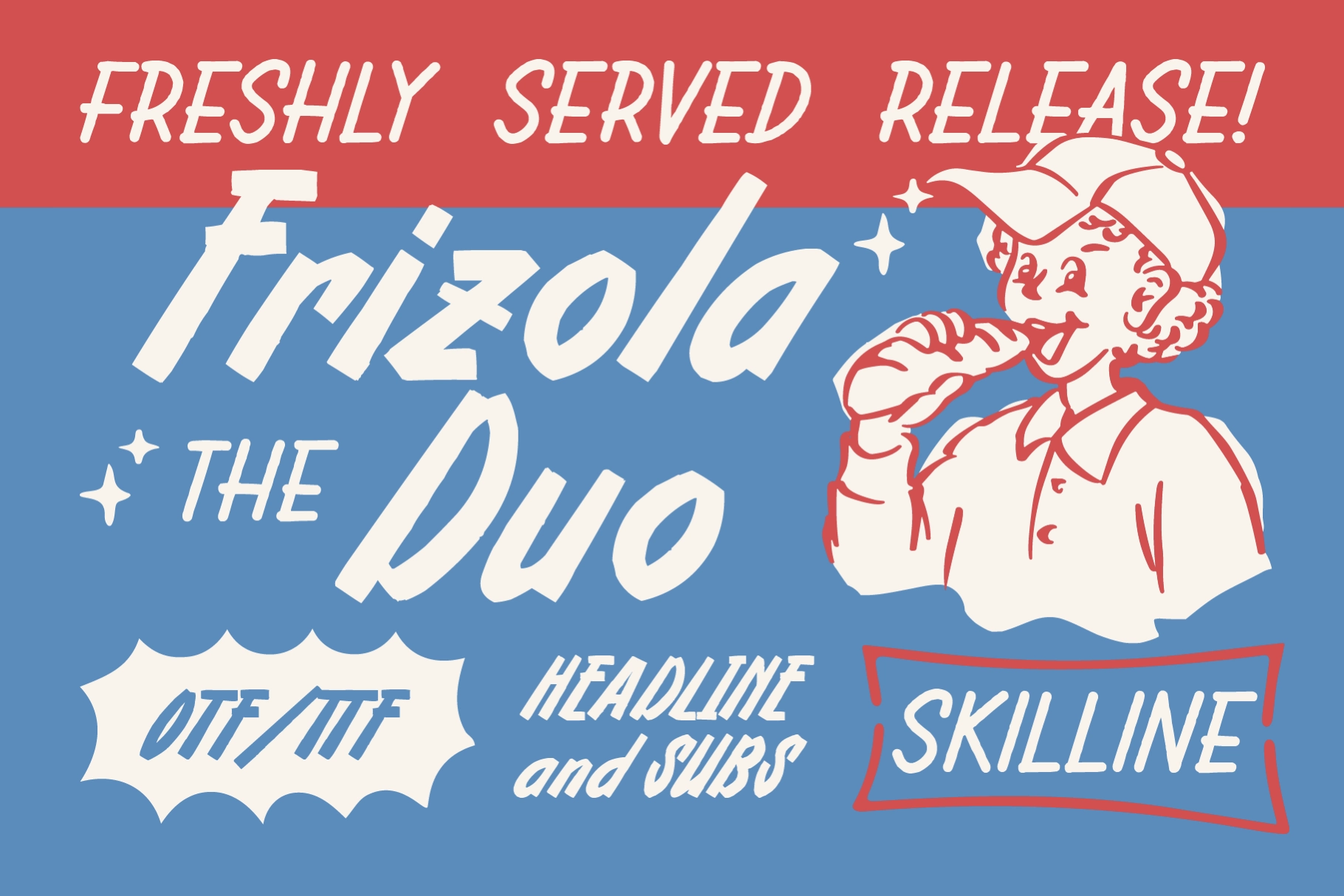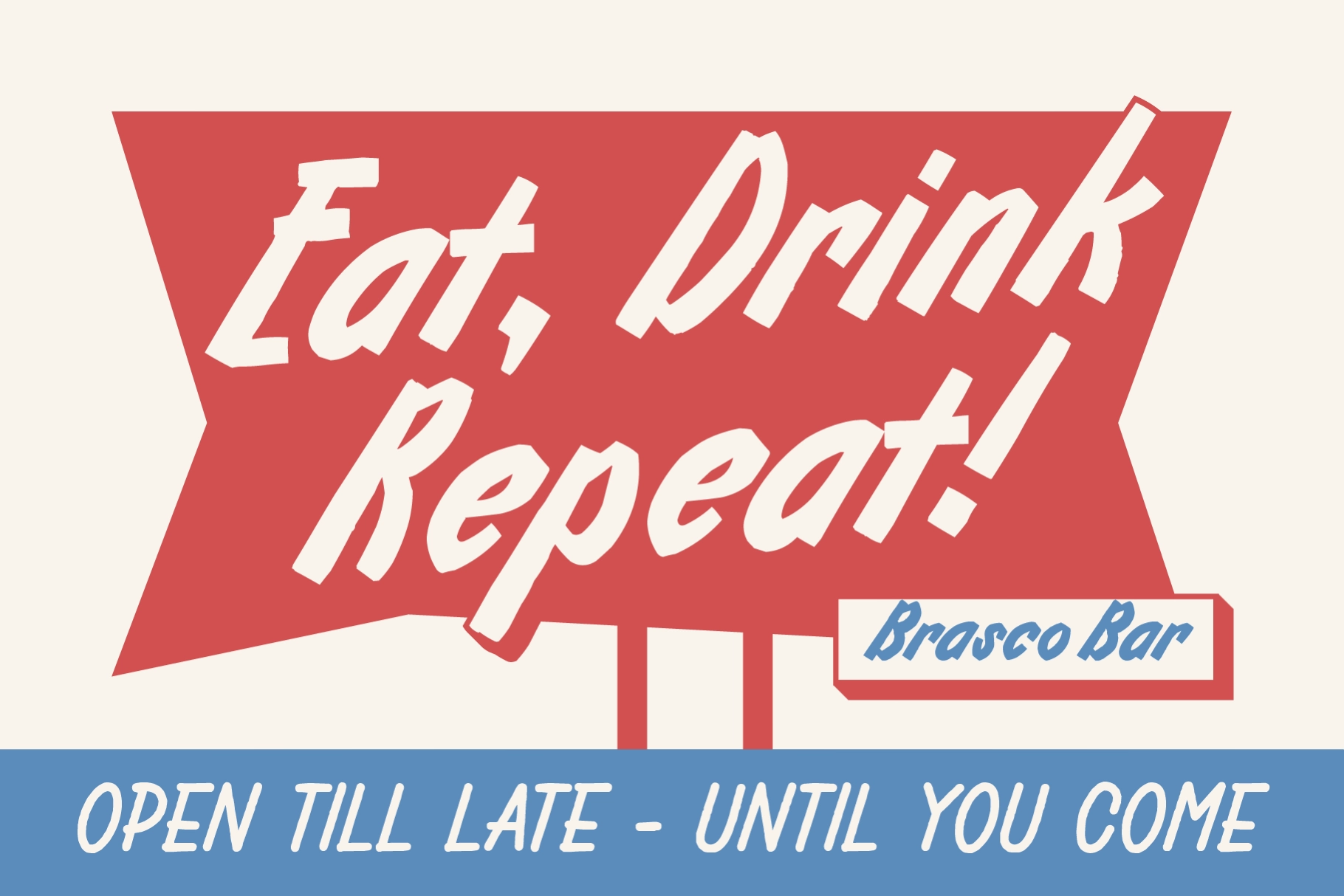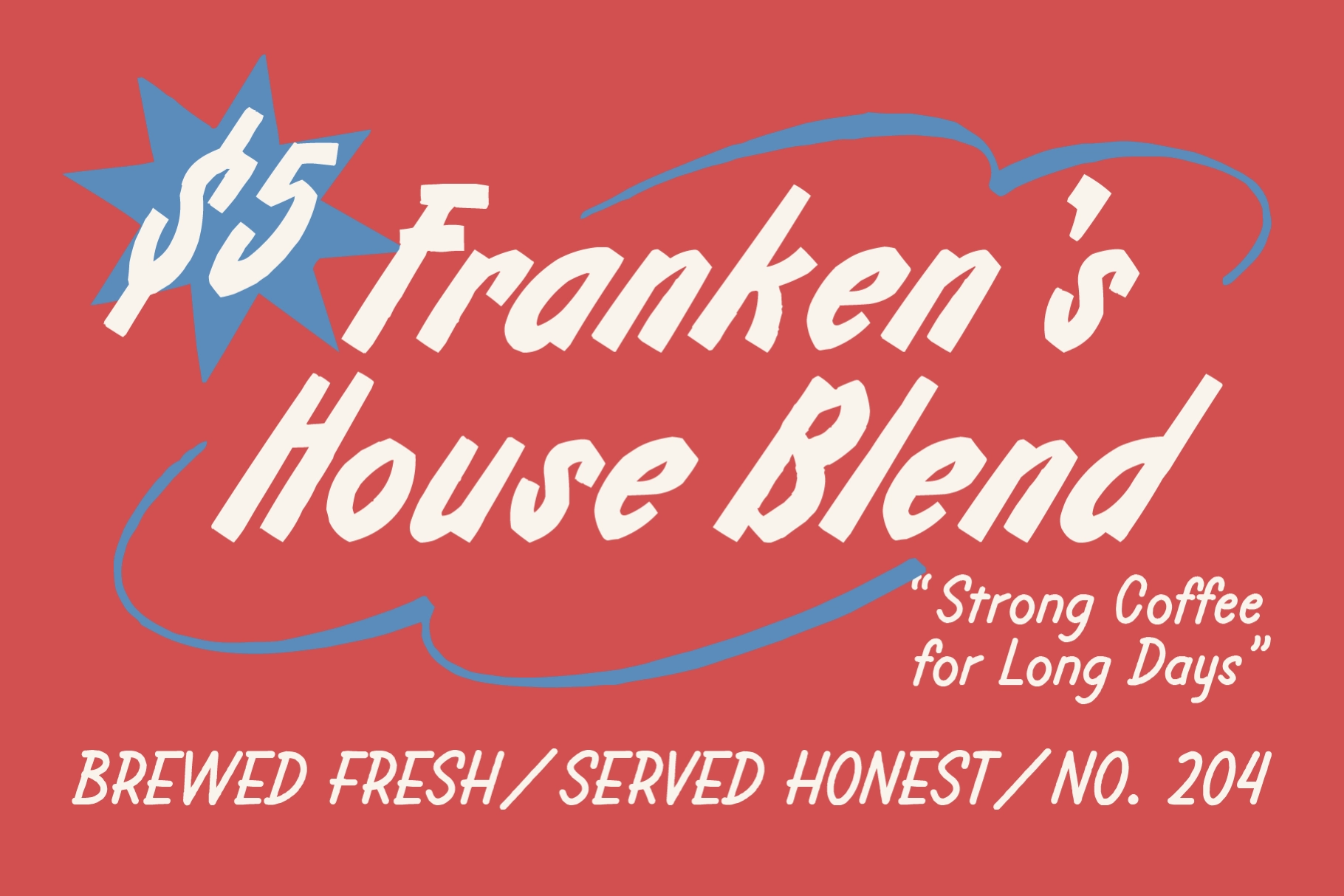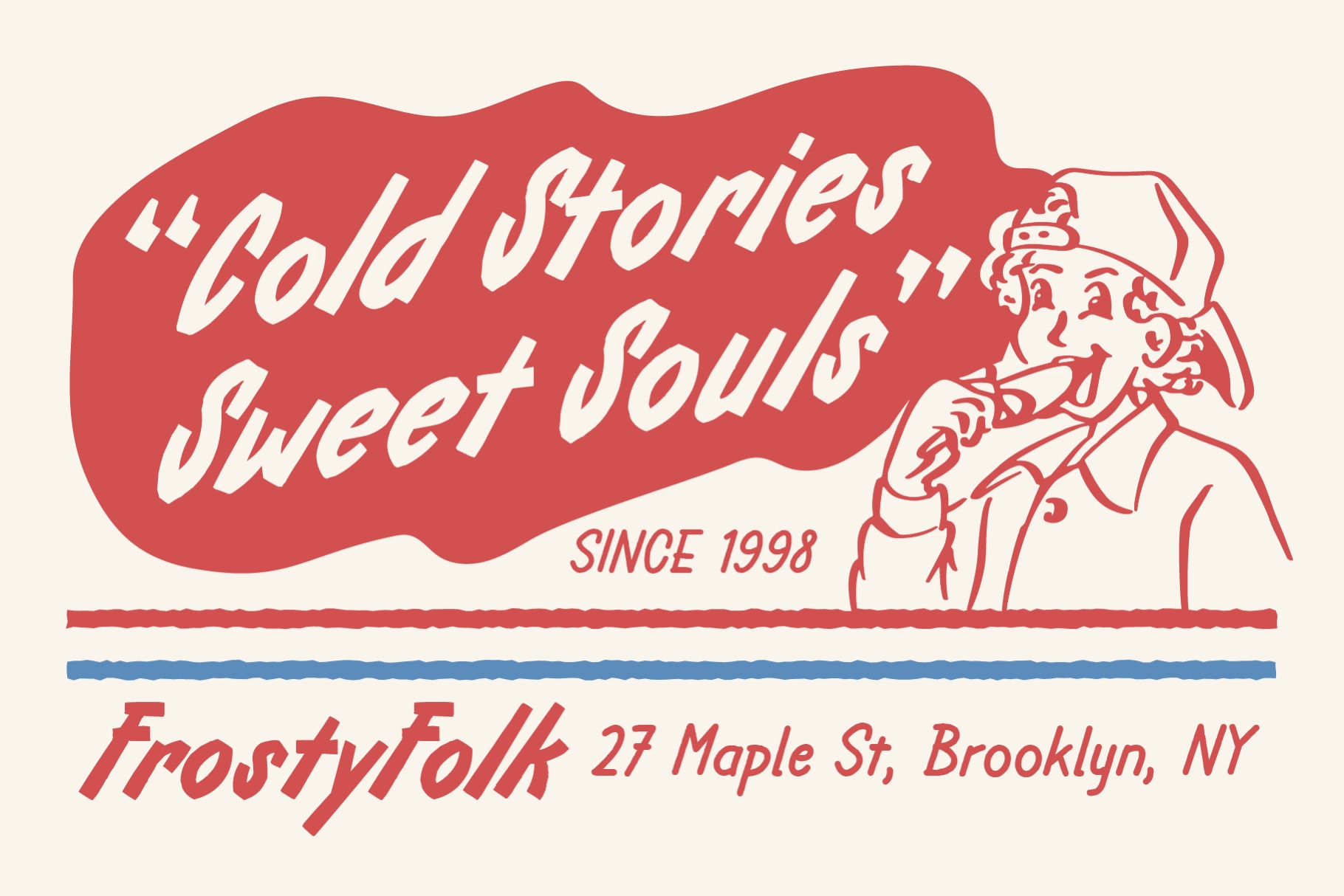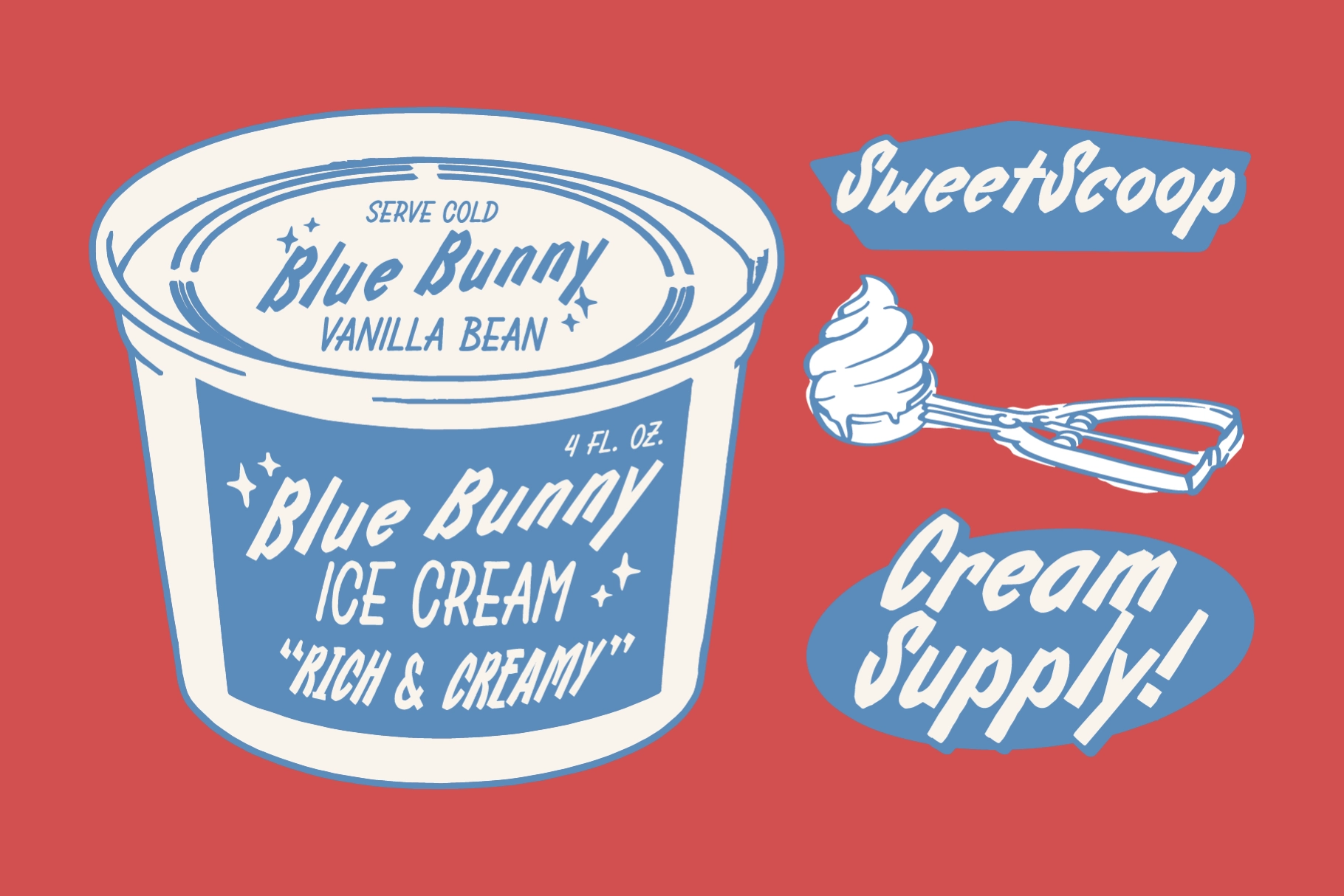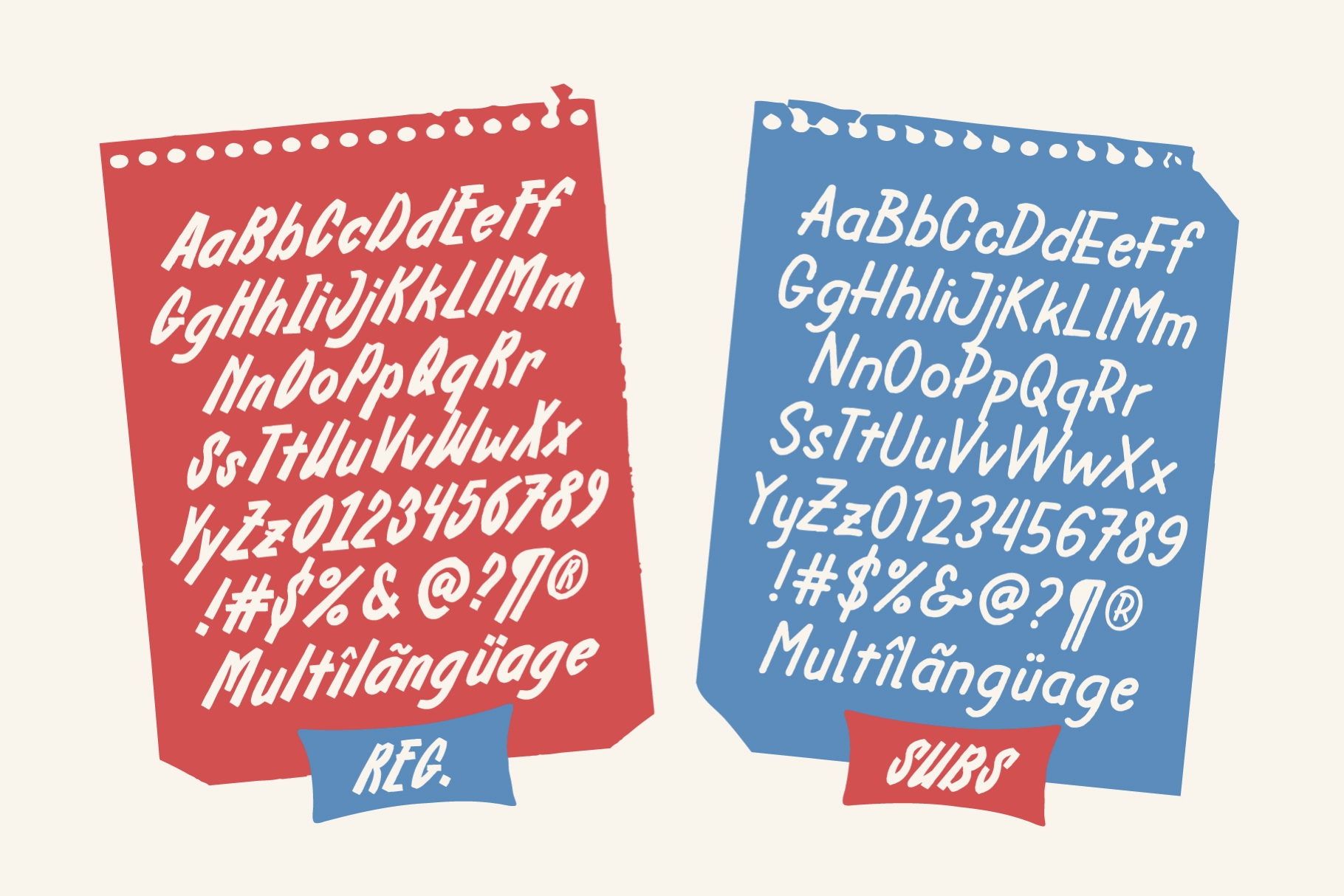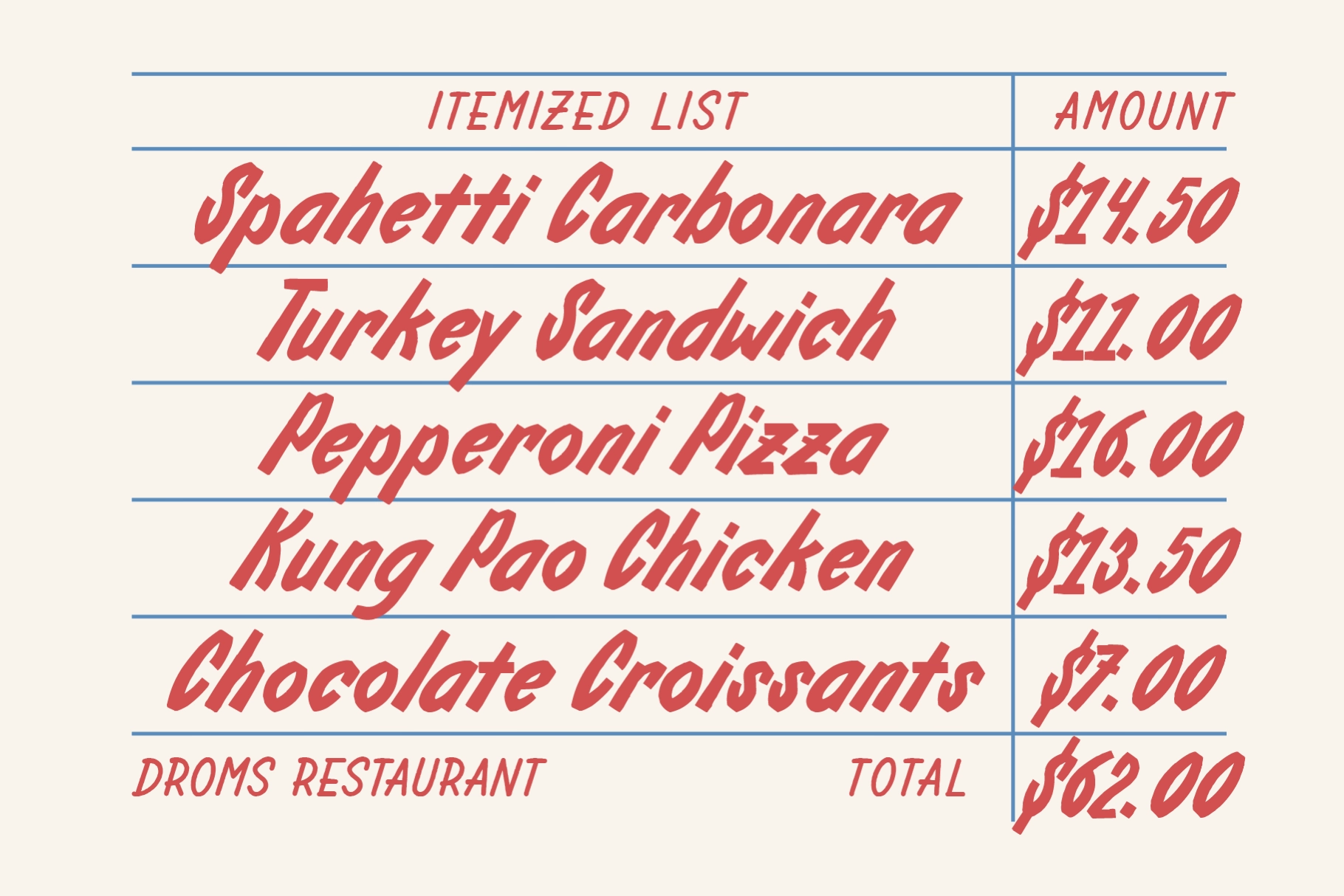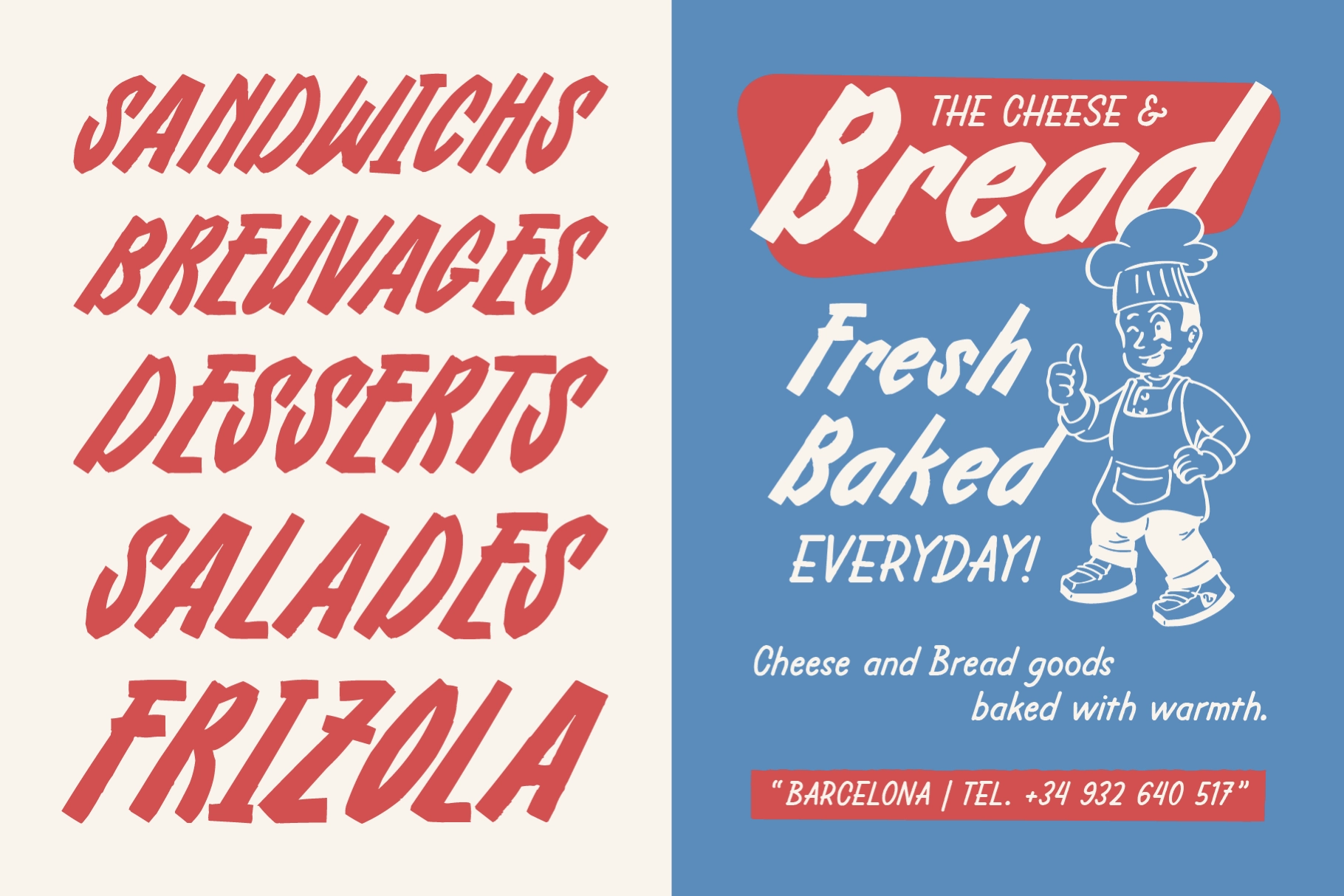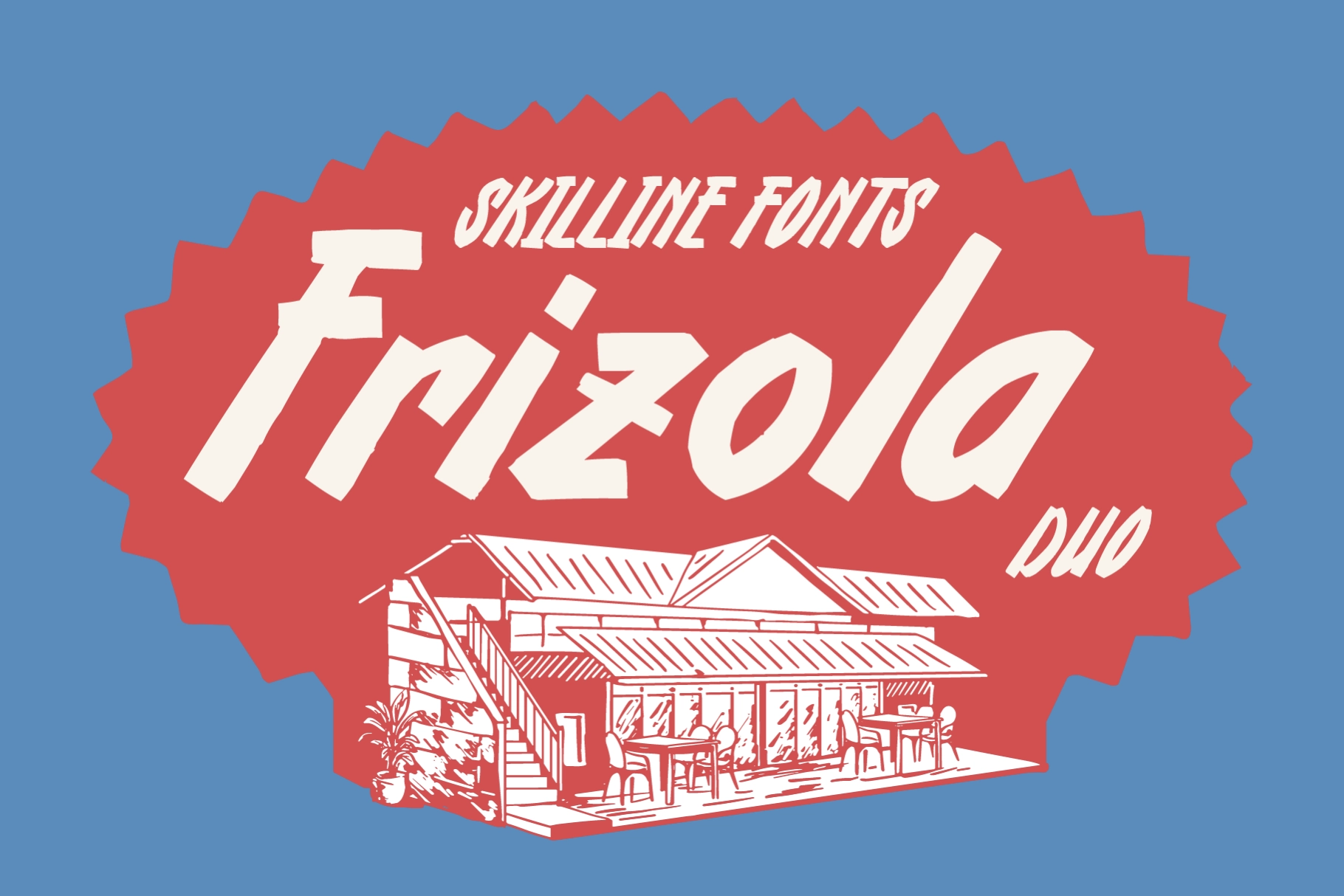
Frizola - Playful Handwritten Duo Font
Reg
Sub
Frizola is a playful handwritten duo font that swings between two registers built for the same diner-counter mood. The Regular style connects into loose, brush-swung script — the kind of logotype lettering once painted straight onto a storefront window. Sub keeps the same brush texture but locks into upright, structured caps, so a receipt line or a footnote doesn't have to compete with the headline above it.
Frizola works best anywhere a menu board or a hand-painted sign would naturally show up. Use it for restaurant and café branding, food truck signage, packaging labels, drink menus, retro logotypes, market stall signage, and promotional flyers.
- 2 styles: Regular, Sub;
- uppercase & lowercase;
- numerals, punctuation & symbols;
- ligatures, ordinals & superscript;
- 229 glyphs per style